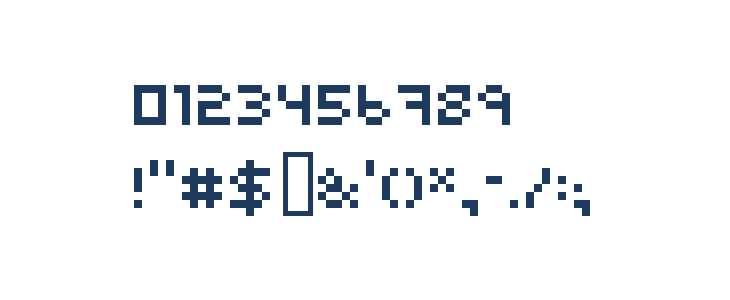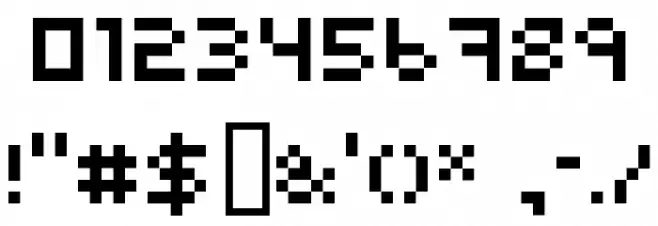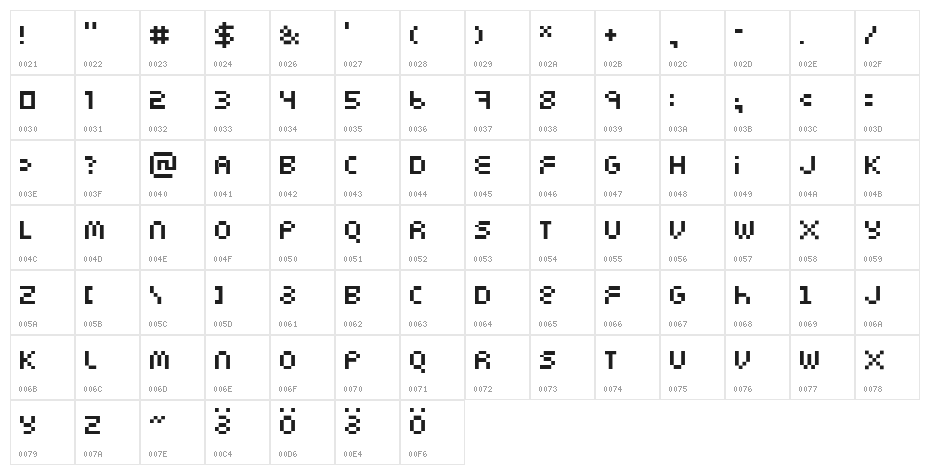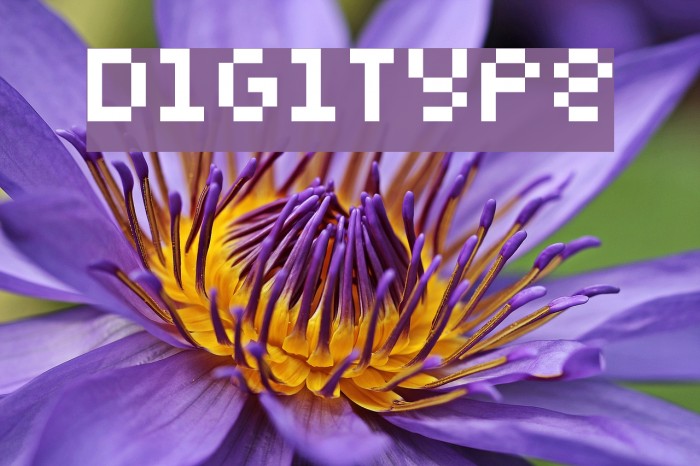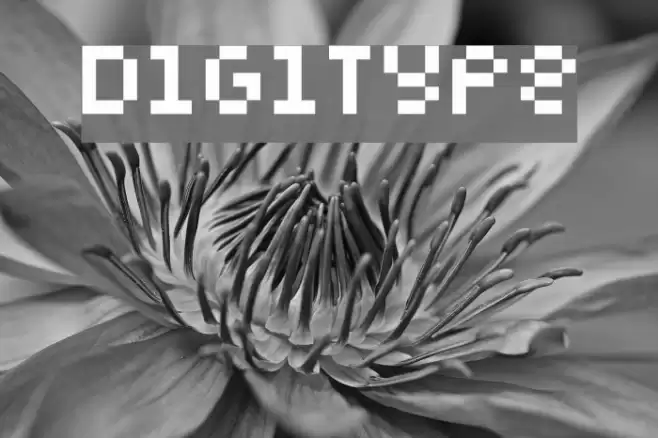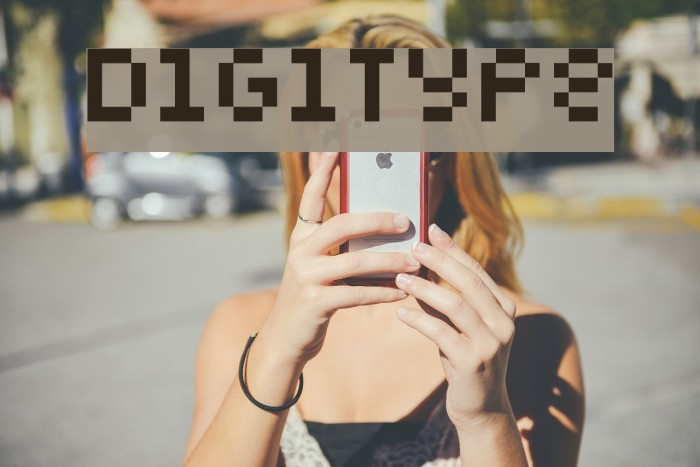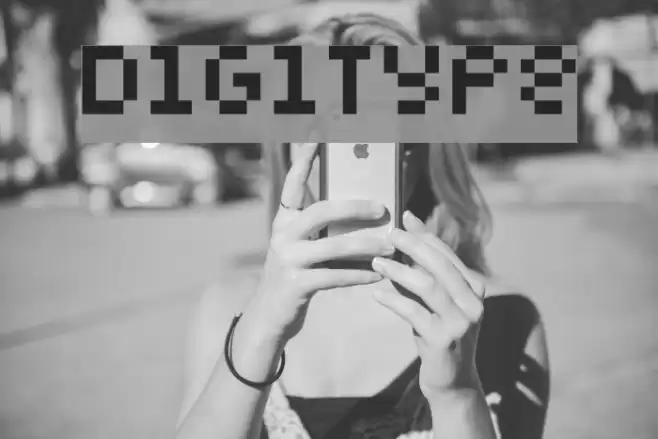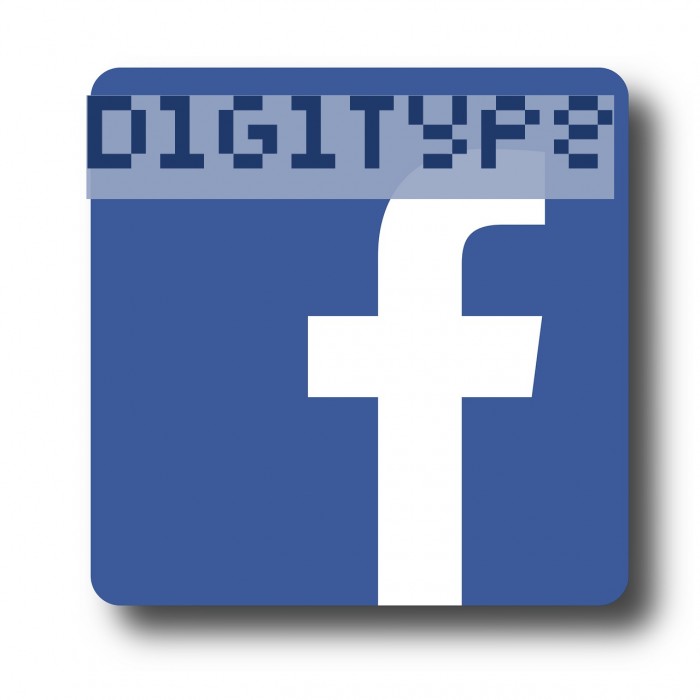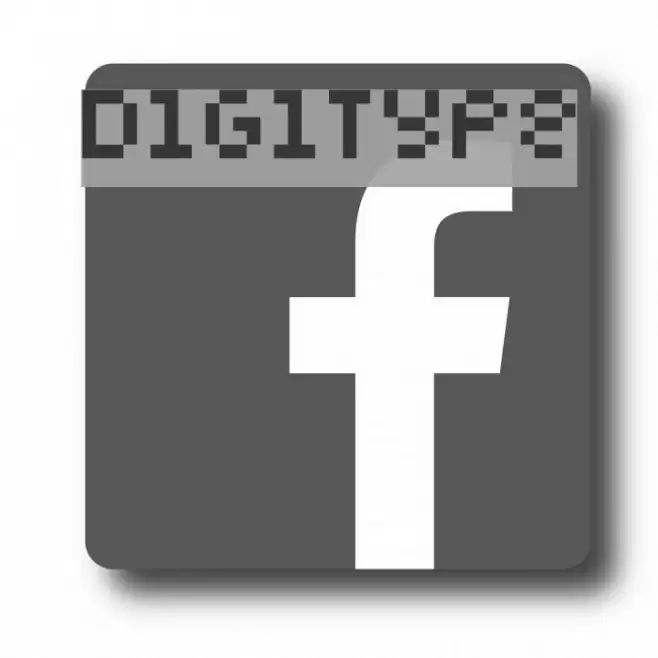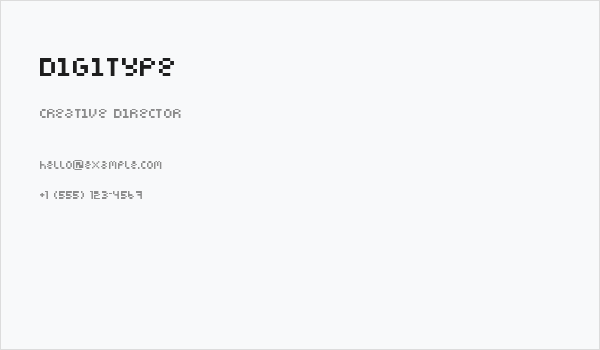
Digitype Font
Digitype Description
This font features a distinct pixelated design reminiscent of early digital displays and video game graphics. Each character is composed of uniform square blocks, giving it a retro, digital aesthetic. The uppercase and lowercase letters maintain a consistent height, contributing to a monospaced feel. The numerals and special characters follow the same blocky style, ensuring uniformity across all glyphs. This font's geometric precision and nostalgic vibe make it ideal for projects that aim to evoke a sense of digital nostalgia or a futuristic, tech-oriented theme.
| Use Case | Headlines, Logos, Digital displays |
| Proposed Projects | Ideal for retro video game designs, digital-themed posters, tech-oriented branding, and any project seeking a nostalgic digital look. |